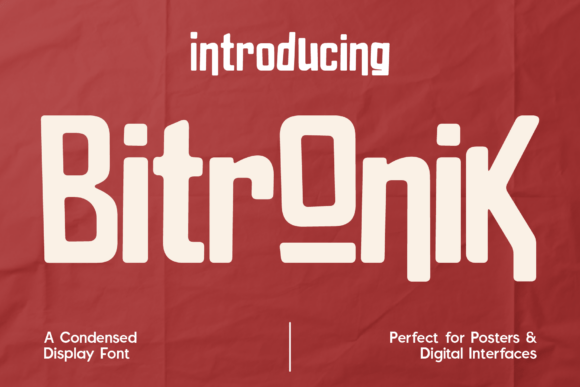
Bitronik – A Futuristic Condensed Display Font for the Digital Age
In the rapidly evolving world of digital design, the right typography can make all the difference. Introducing Bitronik, a sharp, condensed display font that embodies the spirit of the future. Crafted with precision and a keen eye for detail, Bitronik is the perfect choice for designers looking to infuse their projects with a strong digital personality.
Key Features of Bitronik
- Futuristic Energy: Bitronik boasts tech-inspired forms with a unique condensed structure that sets it apart from other fonts.
- Designed for Digital: Optimized for screens, apps, UI/UX, and web design, ensuring your digital projects stand out.
- Versatile Impact: Ideal for branding, event posters, music visuals, and startups looking for a bold and modern look.
- Highly Readable: Maintains sharpness and clarity even at small sizes, making it perfect for a wide range of applications.
- Multilingual Ready: Full character set with numbers, punctuation, and language support to cater to a global audience.
The Benefits of Using Bitronik in Your Designs
Bitronik is more than just a font – it’s a design statement. Its clean yet edgy letterforms, coupled with subtle modular touches and geometric precision, make it the go-to choice for designers aiming to create a lasting impression. Here are some benefits of incorporating Bitronik into your design projects:
1. Uniqueness and Recognition
Bitronik’s futuristic appeal ensures that your designs stand out in a crowded digital landscape. Its unique condensed structure not only captures attention but also fosters recognition, making it easier for your brand or message to be remembered.
2. Versatility Across Platforms
Whether you’re working on a website, mobile app, poster, or social media graphics, Bitronik adapts seamlessly. Its optimization for digital platforms means you can maintain consistency across all your digital touchpoints, reinforcing your brand’s digital identity.
3. Enhanced Readability
Despite its condensed nature, Bitronik prioritizes readability. Its carefully crafted letterforms ensure that your messages are conveyed clearly and effectively, even at smaller font sizes. This is particularly beneficial for UI/UX design, where space is limited but clarity is crucial.
4. Multilingual Support
In today’s globalized world, reaching a diverse audience is key. Bitronik’s full character set and language support make it an excellent choice for brands and designers looking to communicate with a wide and varied audience.
Use Cases for Bitronik
Bitronik’s versatility and unique aesthetic make it suitable for a variety of design projects. Here are some scenarios where Bitronik can elevate your design:
1. Tech and Startup Branding
For tech startups and companies in the digital space, Bitronik offers a modern and innovative look that aligns perfectly with their brand values. Its futuristic vibe helps in creating a strong first impression, essential for startups looking to establish their presence.
2. Event Posters and Flyers
Events, especially those related to technology, innovation, and digital culture, can benefit greatly from Bitronik’s bold and futuristic appeal. It helps in creating eye-catching posters and flyers that attract attention and generate interest.
3. UI/UX Design
In the realm of UI/UX design, Bitronik’s readability and condensed structure make it an excellent choice for headings, titles, and call-to-actions. It enhances the digital experience, making interfaces not only functional but also visually appealing.
4. Music and Visual Arts
For artists, musicians, and producers looking for a modern and edgy look, Bitronik can be a valuable asset. It complements visual arts and music by adding a layer of sophistication and futurism, helping creators to express their unique style.
Tips for Implementing Bitronik in Your Designs
To maximize the impact of Bitronik, consider the following tips:
1. Pair with Complementary Fonts
Bitronik works best when paired with fonts that complement its futuristic and condensed style. Consider using sans-serif fonts with a softer look to create contrast and balance in your designs.
2. Experiment with Sizes and Colors
Don’t be afraid to experiment with different sizes and colors. Bitronik’s versatility means it can be effectively used in various contexts, from large headings to smaller body text.
3. Consider Your Audience
While Bitronik is a versatile font, it’s essential to consider your target audience. Ensure that the font aligns with your brand’s personality and resonates with your audience’s preferences.
Embrace the Future with Bitronik
Bitronik is more than just a font – it’s a gateway to the future of digital design. Its unique blend of futuristic energy, versatility, and readability makes it an invaluable tool for designers aiming to leave a mark in the digital world. Whether you’re crafting a brand identity, designing an app, or creating event materials, Bitronik offers the perfect combination of style and functionality. Step into the future of design with Bitronik and make your digital projects shine like never before.